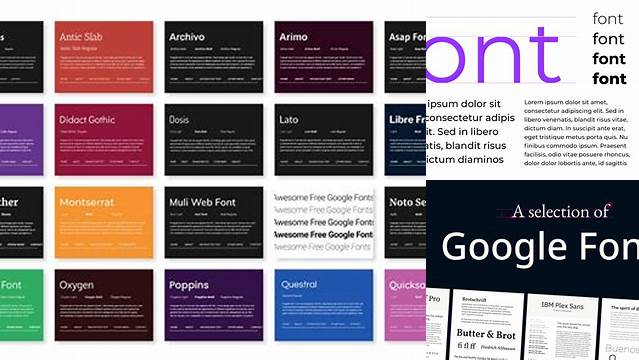
Best Google Fonts For Websites: Reddit's Top Picks
Hey guys! Picking the right fonts for your website can feel like a Herculean task, right? It's not just about making things look pretty; it's about readability, branding, and overall user experience. Reddit, being the treasure trove of opinions it is, has tons of threads discussing the best Google Fonts for websites. Let's dive into some of the top contenders and what makes them shine.
H2: Top Google Font Combinations for Websites According to Reddit
Figuring out which fonts play well together can be tricky. Reddit users often share their favorite font pairings, giving you a head start. A popular combination is Open Sans for body text paired with Montserrat for headings. Open Sans is known for its clean and readable appearance, making it perfect for long paragraphs. Montserrat, on the other hand, adds a touch of modernity and works well for titles and headings, grabbing the reader’s attention without being too distracting. Another widely recommended pairing involves Roboto and Roboto Slab. Roboto offers a modern, geometric design that works wonderfully for body text, providing clarity and readability. Roboto Slab, with its slightly bolder and more assertive appearance, can be used for headlines to create a visual hierarchy. Additionally, many designers love pairing Lato with Merriweather. Lato is simple and versatile, functioning seamlessly as body text due to its legibility. Merriweather, on the other hand, exudes sophistication and can bring a touch of elegance to headings. Reddit threads often provide visual examples of these combinations in action, allowing you to see how they look on real websites before making a decision. Moreover, users often discuss why these combinations work, focusing on aspects such as contrast, balance, and overall aesthetic appeal. Ultimately, the goal is to find combinations that not only look great but also enhance the user experience by making the content easy to read and digest. It’s always recommended to test different combinations on your own website to see what works best for your specific needs and branding.
H2: Most Readable Google Fonts for Website Body Text (Reddit's Choice)
When it comes to body text, readability is king. Reddit users consistently recommend fonts like Open Sans, Lato, and Roboto for their clear and legible designs. Open Sans, designed with a neutral yet friendly appearance, has become a staple for web designers aiming to deliver a seamless reading experience. Its open forms and straightforward design make it easy on the eyes, especially for longer articles and content-heavy websites. Lato, with its semi-rounded details, offers a warm and approachable feel while maintaining excellent legibility. It’s versatile enough to work across various industries and website types. Roboto, with its modern geometric forms, provides a clean and efficient reading experience, making it another popular choice for body text. Reddit discussions often highlight the importance of considering font size, line height, and letter spacing to maximize readability. Even the best font can lose its effectiveness if these factors are not properly adjusted. Users share tips on fine-tuning these settings to ensure that the text is comfortable to read on different screen sizes and devices. Furthermore, Reddit threads often explore the use of color contrast between the text and the background. A good contrast ratio is crucial for readers, particularly those with visual impairments. The consensus is that a high contrast improves readability and reduces eye strain. Overall, the key takeaway from Reddit's recommendations is that the best body text fonts prioritize clarity and ease of reading above all else, ensuring that visitors can focus on the content without struggling to decipher the words. It’s a balancing act between aesthetics and functionality, where readability should always take precedence.
H2: Modern Google Fonts Recommended by Reddit Users
For a contemporary vibe, Reddit users suggest fonts like Montserrat, Poppins, and Nunito Sans. Montserrat exudes a modern, urban aesthetic, making it a favorite for websites looking to convey a sense of style and sophistication. Its clean lines and geometric shapes give it a polished and professional appearance. Poppins, with its geometric sans-serif design, offers a slightly softer and more approachable feel. Its rounded terminals add a touch of friendliness, making it suitable for a wide range of applications. Nunito Sans, an extended version of the original Nunito, is highly versatile and readable. Its rounded forms and balanced proportions make it a great choice for both headings and body text. Reddit discussions often delve into how these modern fonts can be effectively used to enhance a website's overall design. Users share examples of websites that successfully incorporate these fonts, highlighting the visual impact they create. Additionally, Reddit threads explore the importance of using these fonts consistently throughout the website to maintain a cohesive and professional look. The consensus is that modern fonts can significantly elevate a website's design, making it appear more contemporary and engaging. However, it's important to use them judiciously, ensuring that they align with the website's branding and target audience. Overusing modern fonts or pairing them inappropriately can lead to a cluttered or disjointed appearance. Therefore, careful consideration and experimentation are key to achieving the desired effect.
H2: Best Google Fonts for Headlines and Titles (Reddit Approved)
Headlines and titles need to grab attention, and Reddit users rave about fonts like Oswald, Playfair Display, and Raleway for this purpose. Oswald, a reimagining of the classic sans-serif style, brings a touch of boldness and modernity to headings. Its condensed design makes it ideal for titles that need to stand out without taking up too much space. Playfair Display, with its elegant and refined appearance, adds a touch of sophistication to headlines. Its high contrast and delicate serifs make it perfect for websites aiming to convey a sense of luxury and exclusivity. Raleway, a sleek and stylish sans-serif, offers a more versatile option for headlines. Its clean lines and geometric forms make it suitable for a wide range of industries and website types. Reddit discussions often focus on the importance of choosing headline fonts that complement the body text. The goal is to create a visual hierarchy that guides the reader through the content, making it easy to scan and understand. Users share tips on adjusting the font size, weight, and letter spacing to maximize the impact of the headlines. Furthermore, Reddit threads explore the use of color and background to make the headlines stand out even more. The consensus is that well-designed headlines can significantly improve a website's engagement and conversion rates. They not only grab the reader's attention but also provide a clear indication of what the content is about. Therefore, investing time in selecting the right headline fonts is crucial for creating a successful website.
H2: Google Fonts That Look Good on All Devices (Reddit Tested)
Responsiveness is crucial, and Reddit users recommend fonts like Roboto, Open Sans, and Lato for their cross-device compatibility. These fonts are designed to render well on screens of all sizes, ensuring a consistent and readable experience for all visitors. Roboto, with its optimized rendering and geometric structure, maintains its clarity even on smaller screens. Its clean design ensures that the text remains legible regardless of the device being used. Open Sans, known for its neutral and friendly appearance, is also highly responsive. Its open forms and straightforward design make it easy on the eyes, even on mobile devices. Lato, with its semi-rounded details, offers a warm and approachable feel while maintaining excellent legibility across different screen sizes. Reddit discussions often highlight the importance of testing fonts on various devices to ensure that they render properly. Users share tips on using browser developer tools to simulate different screen sizes and resolutions. Additionally, Reddit threads explore the use of responsive typography techniques, such as adjusting font sizes and line heights based on the screen width. The consensus is that choosing responsive fonts is essential for creating a user-friendly website that looks good on all devices. It ensures that all visitors have a positive experience, regardless of how they access the site. Therefore, prioritizing cross-device compatibility is a key factor in selecting the right fonts for your website.
H2: Pairing Google Fonts with Logos: Reddit Design Tips
Matching fonts is an art, and Reddit users offer valuable tips on pairing Google Fonts with logos. The key is to find fonts that complement the logo's style and brand identity. For example, if the logo features a bold and modern font, pairing it with a clean and simple sans-serif like Roboto or Open Sans can create a balanced and harmonious look. Conversely, if the logo is more traditional and elegant, pairing it with a serif font like Playfair Display or Merriweather can enhance its sophistication. Reddit discussions often include examples of successful font pairings with logos, highlighting the visual impact they create. Users share tips on using online tools and resources to experiment with different font combinations. Additionally, Reddit threads explore the importance of considering the overall brand message when selecting fonts. The fonts should not only look good but also convey the desired emotions and values. The consensus is that carefully pairing Google Fonts with logos can significantly strengthen a brand's visual identity. It creates a cohesive and memorable look that resonates with the target audience. Therefore, investing time in selecting the right font pairings is crucial for creating a strong and effective brand.
H2: Avoiding Common Google Fonts Mistakes: Reddit Advice
Even the best fonts can be misused. Reddit users share advice on avoiding common mistakes when using Google Fonts, such as overusing too many fonts on a single website. Sticking to a maximum of two or three fonts can help maintain a clean and cohesive look. Another common mistake is choosing fonts that are difficult to read, especially for body text. Prioritizing readability is essential for ensuring a positive user experience. Additionally, Reddit threads explore the importance of optimizing fonts for performance. Using too many font weights or styles can slow down a website's loading time. The consensus is that careful planning and attention to detail are key to avoiding these common mistakes. It’s always a good idea to test your website with different fonts, font sizes, and on various devices to make sure everything looks as it should. By being mindful of these pitfalls, you can leverage the power of Google Fonts to create a beautiful and effective website.
H3: Dark Mode Compatibility with Reddit Recommended Google Fonts
With the rise of dark mode, Reddit users are increasingly discussing the compatibility of Google Fonts with dark themes. Some fonts render better than others in dark mode, with factors like weight, contrast, and antialiasing playing a role. Reddit discussions often involve sharing examples of fonts that work well in dark mode and those that don't. Some users recommend using lighter font weights in dark mode to improve readability. Others suggest adjusting the font color to ensure sufficient contrast against the dark background. Reddit users also discuss the importance of testing fonts in different browsers and operating systems to ensure consistent rendering in dark mode. The overall goal is to choose fonts that are both visually appealing and easy to read in both light and dark themes, providing a seamless user experience for all visitors.